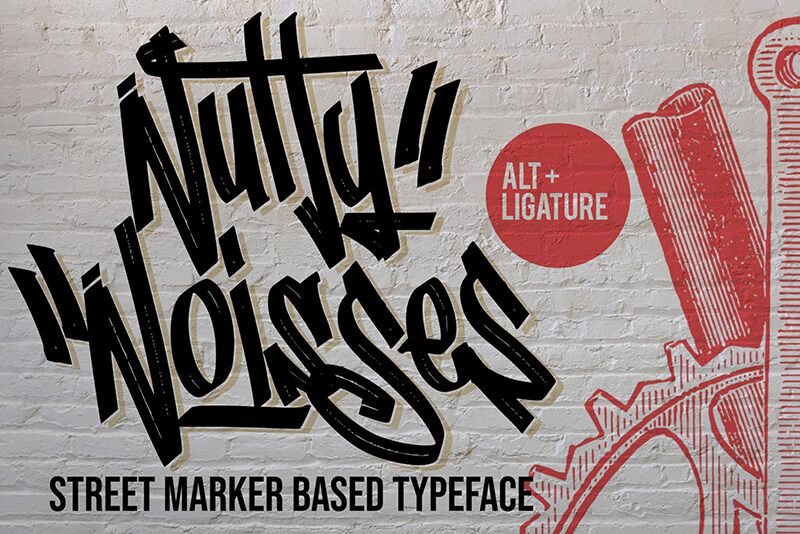
Nutty Noisses is the perfect semi-light graffiti font designed by Gassstype for all your urban-inspired projects. Its condensed width and street marker feel make it ideal for creating eye-catching logos, graphics, and posters that demand attention. Whether you're designing a new streetwear brand or adding edgy flair to your next music festival flyer, Nutty Noisses will add a touch of gritty authenticity to any project. Let this unique graffiti typeface bring your designs to life with its bold, expressive style that's sure to make a statement.
Nutty Noisses